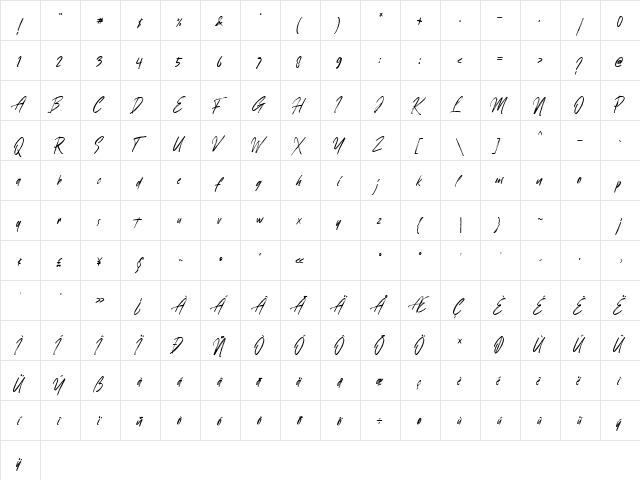
Guzttass Regular
| Foundry | Subqi Std |
| Designer | Amir Subqi Setiaji |
Design Context for Guzttass Typeface
Guzttass is a composed and adaptable typeface that performs quietly and consistently across a wide range of design contexts.